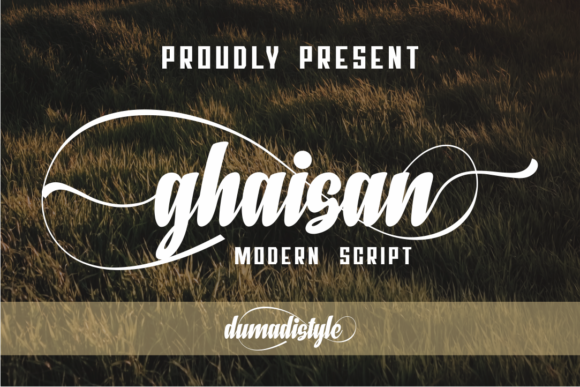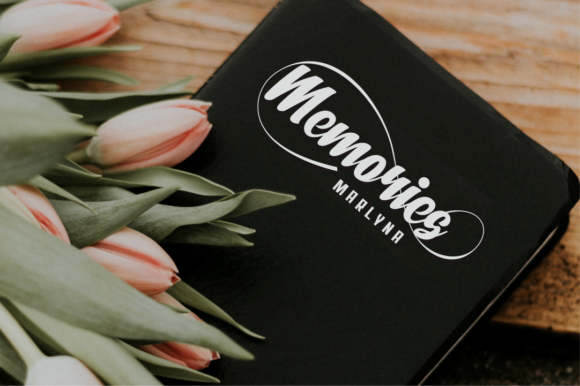
Ghaisan Font
Ghaisan is a beautiful modern script font. It will add an elegant and romantic touch to your designs.
This font is the perfect choice for you next projects.